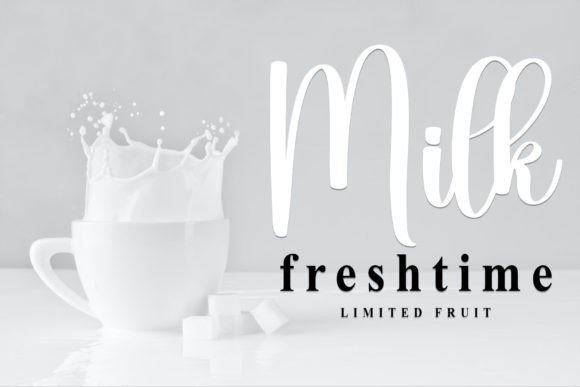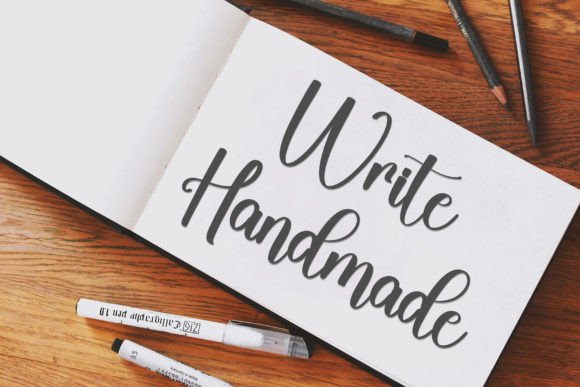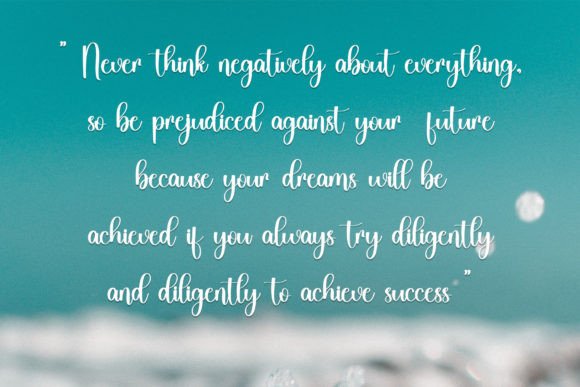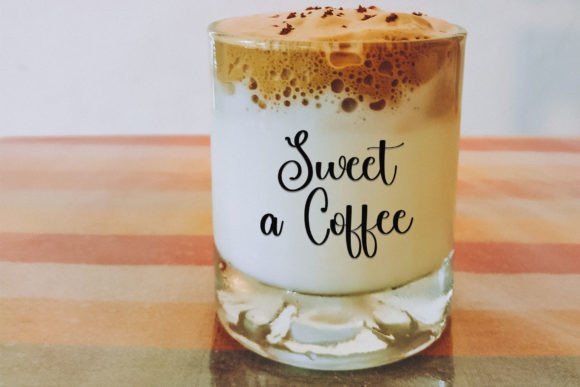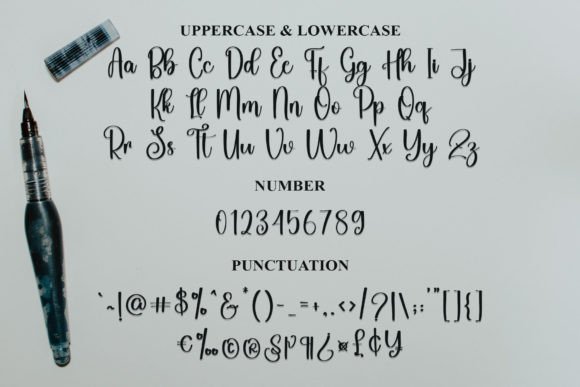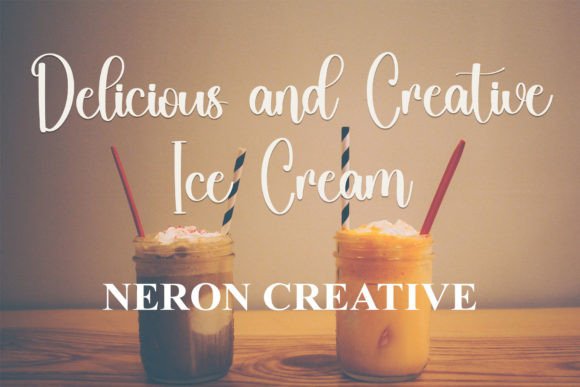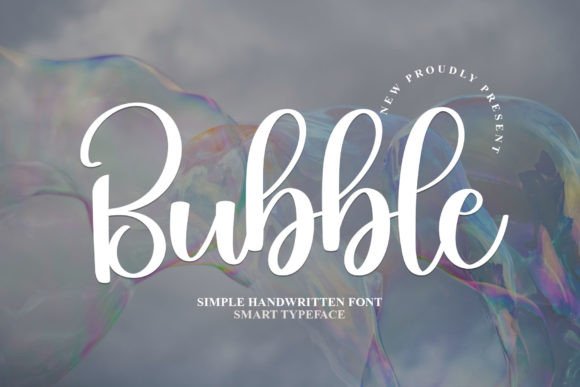
Bubble Font: Add a Touch of Romance to Your Designs
Bubble is an enchanting handwritten font that has captured the hearts of designers and crafters alike. This versatile script font has a wide spectrum of applications, ranging from greeting cards to headlines, and is guaranteed to add a romantic feel to your next project. In this article, we’ll dive into the world of Bubble font, exploring its features, uses, and benefits, as well as provide tips on how to make the most of this beautiful font.
What is Bubble Font?
Bubble font is a type of script font that is characterized by its delicate, cursive strokes and whimsical feel. The font is designed to resemble handwritten writing, with a touch of elegance and sophistication. The Bubble font is perfect for designers and crafters who want to add a personal touch to their projects, whether it’s a greeting card, invitation, or social media graphic.
Features of Bubble Font
- Handwritten style: Bubble font has a unique, handwritten style that sets it apart from other fonts.
- Versatile: This font can be used for a wide range of projects, from greeting cards to headlines.
- Romantic feel: Bubble font is guaranteed to add a romantic touch to your designs.
- Elegant and sophisticated: The font’s delicate strokes and cursive feel make it perfect for designs that require a touch of elegance.
Uses of Bubble Font
Bubble font is a versatile font that can be used for a wide range of projects, including:
- Greeting cards: Add a personal touch to your greeting cards with Bubble font.
- Invitations: Use Bubble font to create beautiful and elegant invitations for weddings, parties, and other special occasions.
- Headlines: Add a touch of romance to your headlines with Bubble font.
- Social media graphics: Use Bubble font to create eye-catching social media graphics that are sure to grab attention.
- Branding: Bubble font can be used for branding purposes, such as creating logos and business cards.
Benefits of Using Bubble Font
There are many benefits to using Bubble font in your designs, including:
- Unique and eye-catching: Bubble font is a unique and eye-catching font that is sure to grab attention.
- Emotional connection: The romantic feel of Bubble font can help create an emotional connection with your audience.
- Versatile: Bubble font can be used for a wide range of projects, making it a great addition to any designer’s toolkit.
Tips for Using Bubble Font
Here are a few tips for using Bubble font in your designs:
- Use it sparingly: Bubble font is a delicate font that can be overpowering if used too much. Use it sparingly to add a touch of elegance to your designs.
- Pair it with other fonts: Bubble font can be paired with other fonts to create a unique and eye-catching combination.
- Experiment with colors: Bubble font looks great in a variety of colors, so don’t be afraid to experiment and find the perfect color for your design.
- Pay attention to spacing: Make sure to pay attention to the spacing between letters and words to ensure that your design looks elegant and sophisticated.
Bubble font is a beautiful and versatile font that is perfect for designers and crafters who want to add a touch of romance to their designs. With its delicate strokes, cursive feel, and whimsical style, Bubble font is sure to grab attention and create an emotional connection with your audience. Whether you’re creating greeting cards, invitations, headlines, or social media graphics, Bubble font is a great choice. So why not give it a try and see how it can enhance your designs?